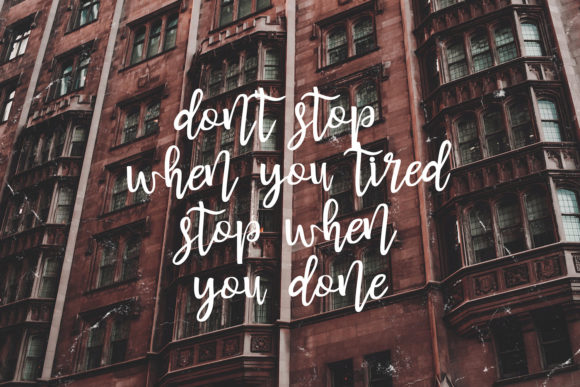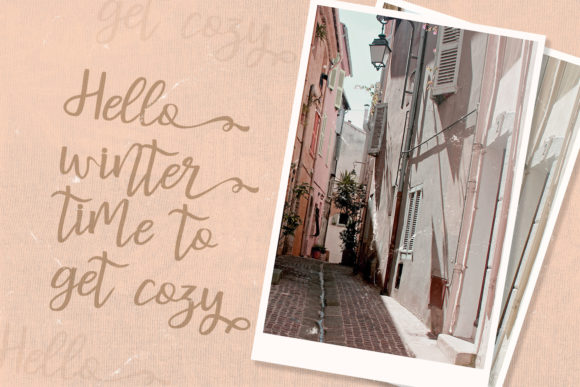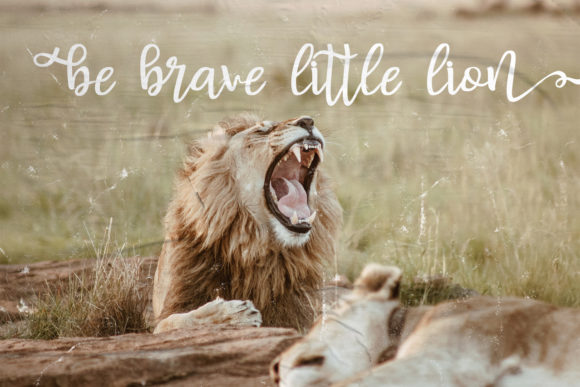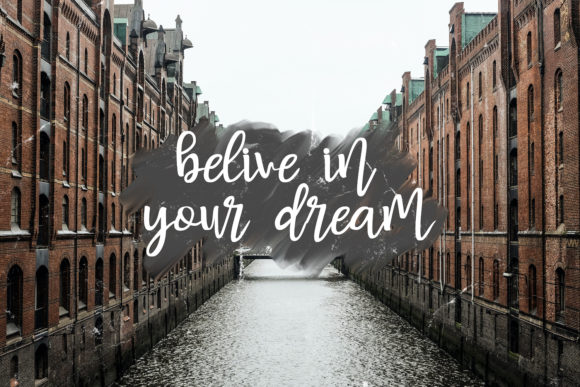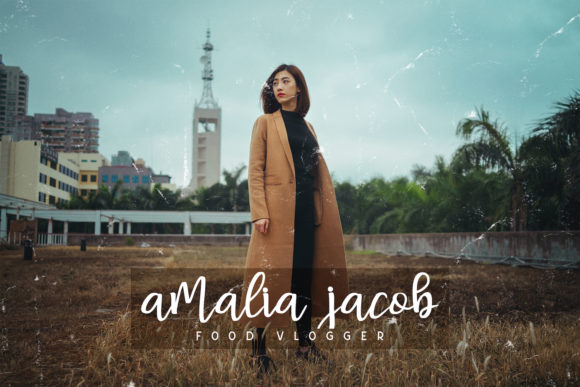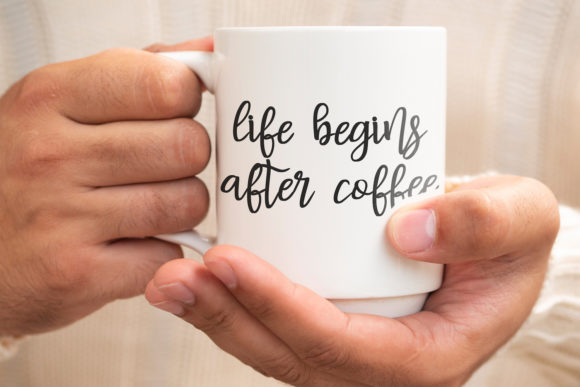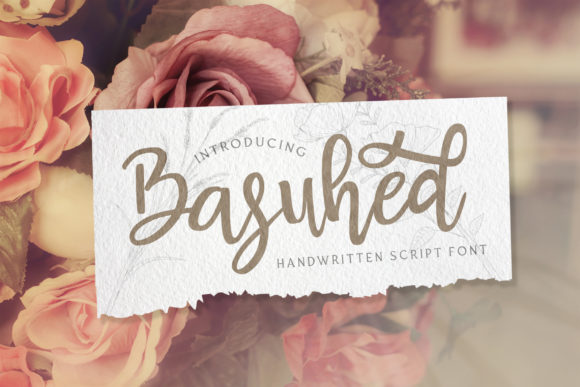
Discover the Elegance of Basuhed Font: Elevate Your Designs with a Relaxed yet Beautiful Handwritten Style
In the world of typography, a font can make or break a design. For those seeking a touch of elegance and sophistication, the Basuhed Font stands out as an exceptional choice. This beautifully crafted handwritten font is not only a feast for the eyes but also incredibly versatile, making it perfect for a wide range of projects. Whether you’re a designer looking to add a personal touch to your work or a crafter aiming to create something unique, Basuhed is sure to captivate your audience.
The Unique Charm of Basuhed Font
Basuhed Font is a masterpiece of modern calligraphy, blending traditional techniques with a contemporary twist. Its most striking feature is its relaxed yet beautiful handwritten style, which exudes a sense of elegance and refinement. The font boasts a varying baseline, smooth lines, and stunning glyphs that add depth and character to any text. Moreover, Basuhed comes with gorgeous alternates and swashes, allowing for endless creativity and customization.
Classy Calligraphic Influences Meet Contemporary Freshness
Basuhed Font strikes the perfect balance between classic calligraphic influences and a modern, fresh feel. Its classy demeanor is undeniable, making it suitable for projects that require a touch of sophistication. At the same time, its contemporary vibe ensures that your designs feel current and engaging. This blend of old and new is what sets Basuhed apart, offering the best of both worlds to designers and crafters.
Applications of Basuhed Font
The versatility of Basuhed Font makes it an excellent choice for a multitude of applications. Here are a few ideas to get you started:
- Branding and Logos: Create a memorable brand identity with Basuhed’s elegant and distinctive style.
- Stationery and Invitations: Add a personal touch to your cards, invitations, and letters.
- Digital Platforms: Enhance your website, blog, or social media graphics with Basuhed’s modern appeal.
- Crafting and DIY Projects: Bring a professional finish to your handmade crafts, such as journals, planners, and more.
Why Choose Basuhed Font?
With so many fonts available, why choose Basuhed? The answer lies in its unique combination of beauty, versatility, and ease of use. Basuhed Font offers:
- Unique Style: A distinctive and beautiful handwritten style that sets your projects apart.
- Ease of Use: PUA encoding for easy access to glyphs and swashes.
- Versatility: Suitable for a wide range of projects, from digital designs to crafting.
- Contemporary Appeal: A modern feel that ensures your designs are current and engaging.
Basuhed Font is a remarkable addition to any designer’s or crafter’s toolkit. Its relaxed yet beautiful handwritten style, combined with its versatility and ease of use, makes it an ideal choice for a multitude of projects. Whether you’re aiming to create something classic and elegant or modern and fresh, Basuhed provides the perfect foundation. Discover the elegance of Basuhed Font and elevate your designs to new heights.
So, fall in love with Basuhed and bring your projects to the highest levels of creativity and sophistication. With Basuhed Font, you’re not just choosing a typeface; you’re choosing a way to make your designs speak with elegance, beauty, and a touch of personal flair.